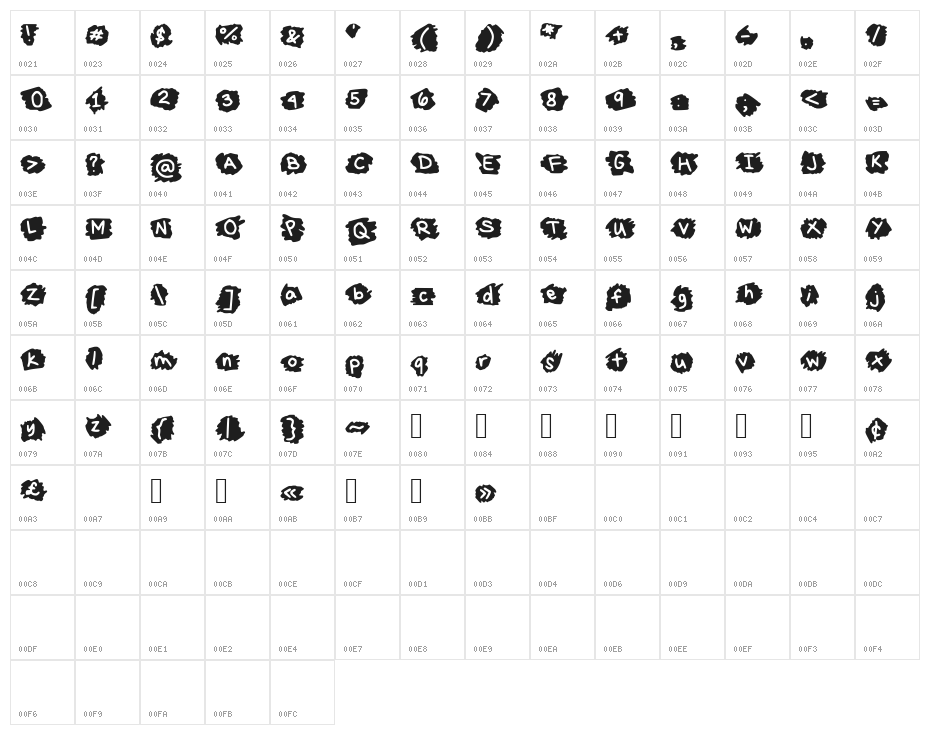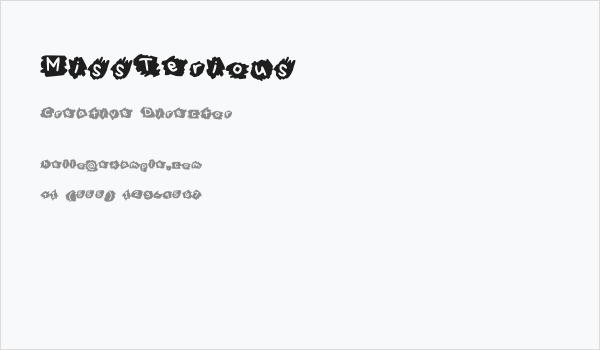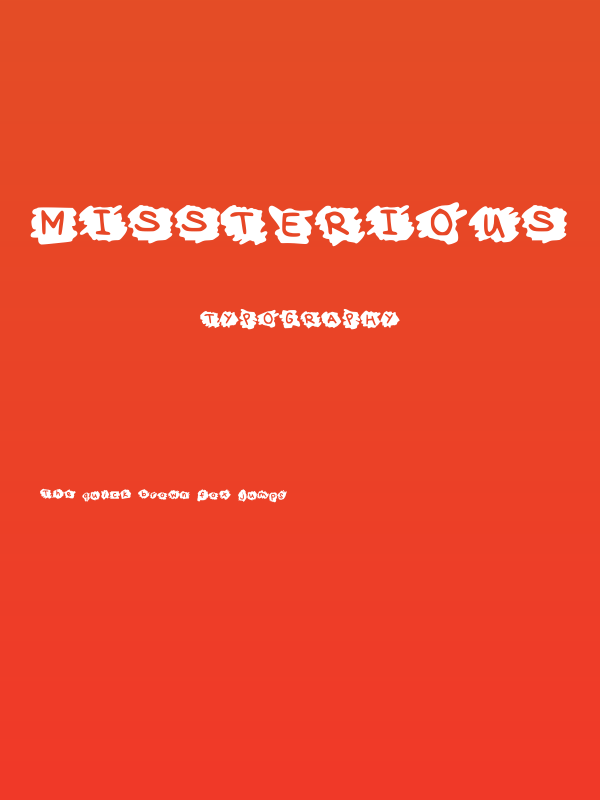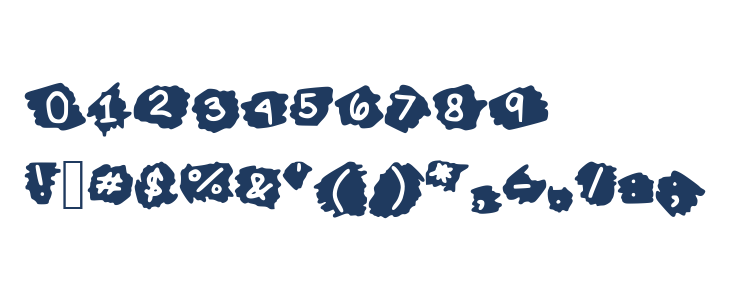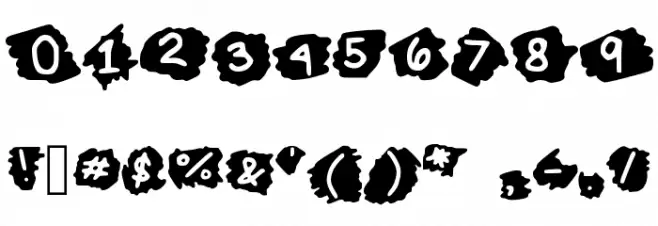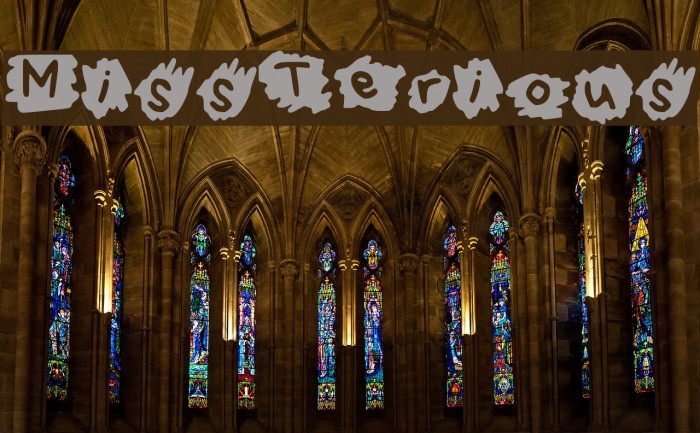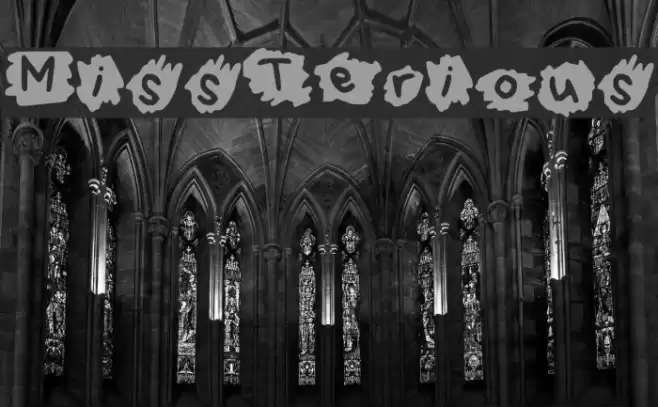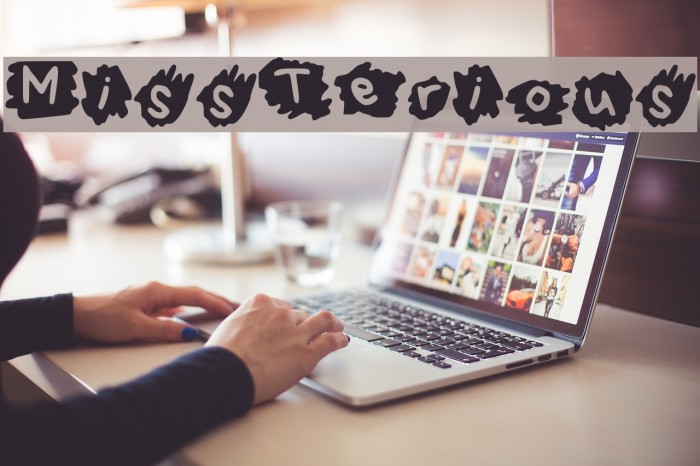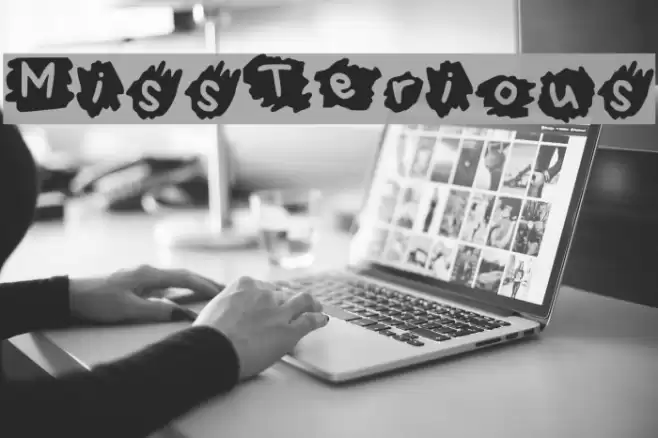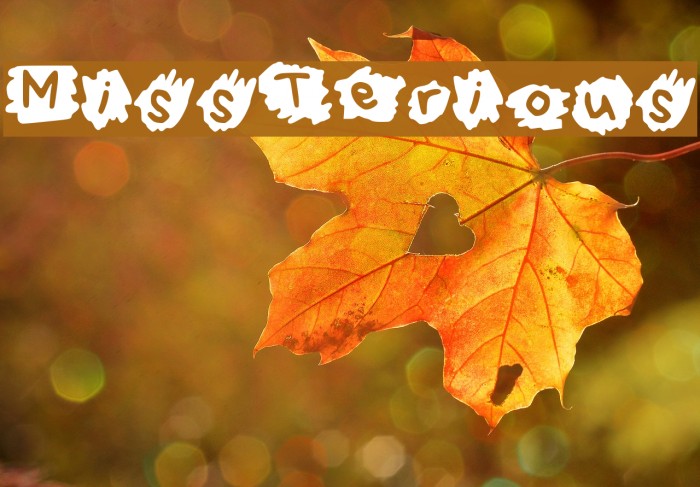
MissTerious Font
MissTerious Description
This font features a bold and playful design with a distinctly jagged and irregular outline, giving it a dynamic and energetic appearance. The characters are heavily stylized, resembling torn paper or graffiti, which adds a sense of movement and spontaneity. The uppercase and lowercase letters maintain a consistent style, with each character appearing as if it has been cut out from a larger piece. The numbers and special characters follow the same design principles, ensuring a cohesive look across all elements. This font is ideal for projects that require a bold statement or a fun, informal touch.
MISSTERIOUS UPPERCASE
MISSTERIOUS LOWERCASE
MISSTERIOUS OTHER CHARS
| Proposed Projects | Ideal for posters, album covers, children's books, or any project needing a bold, playful touch. |